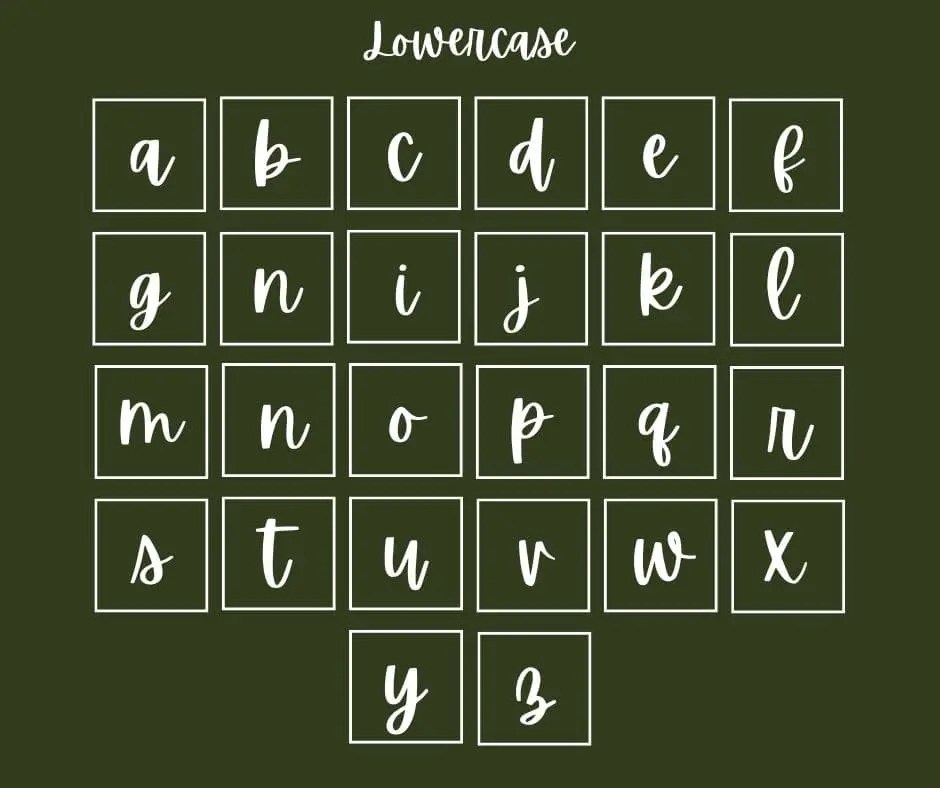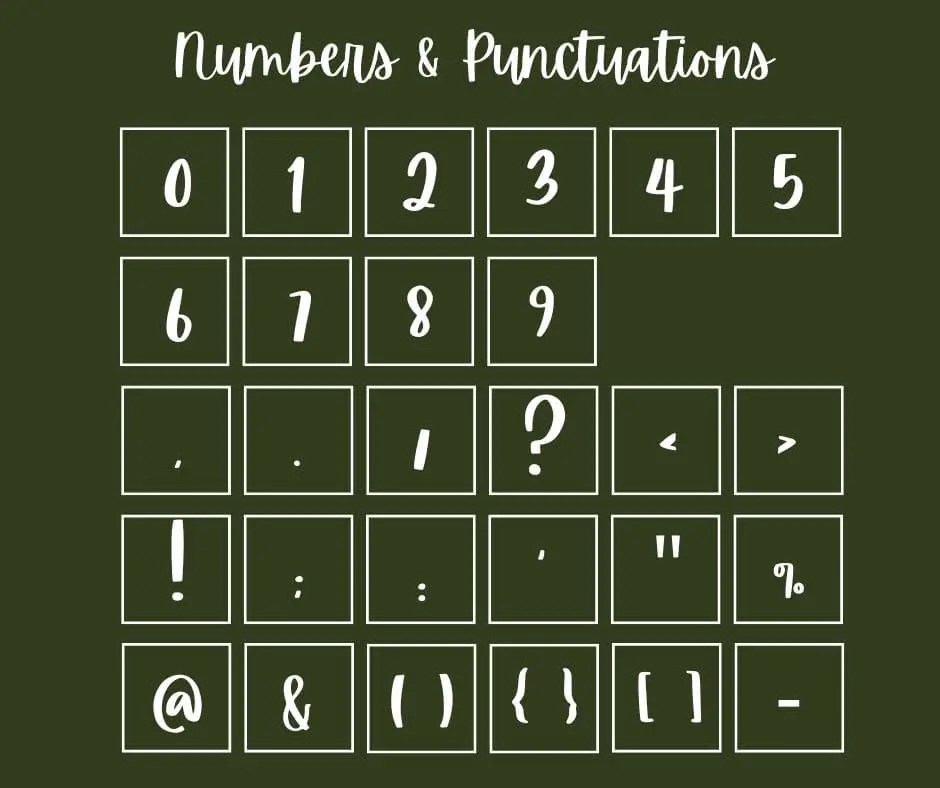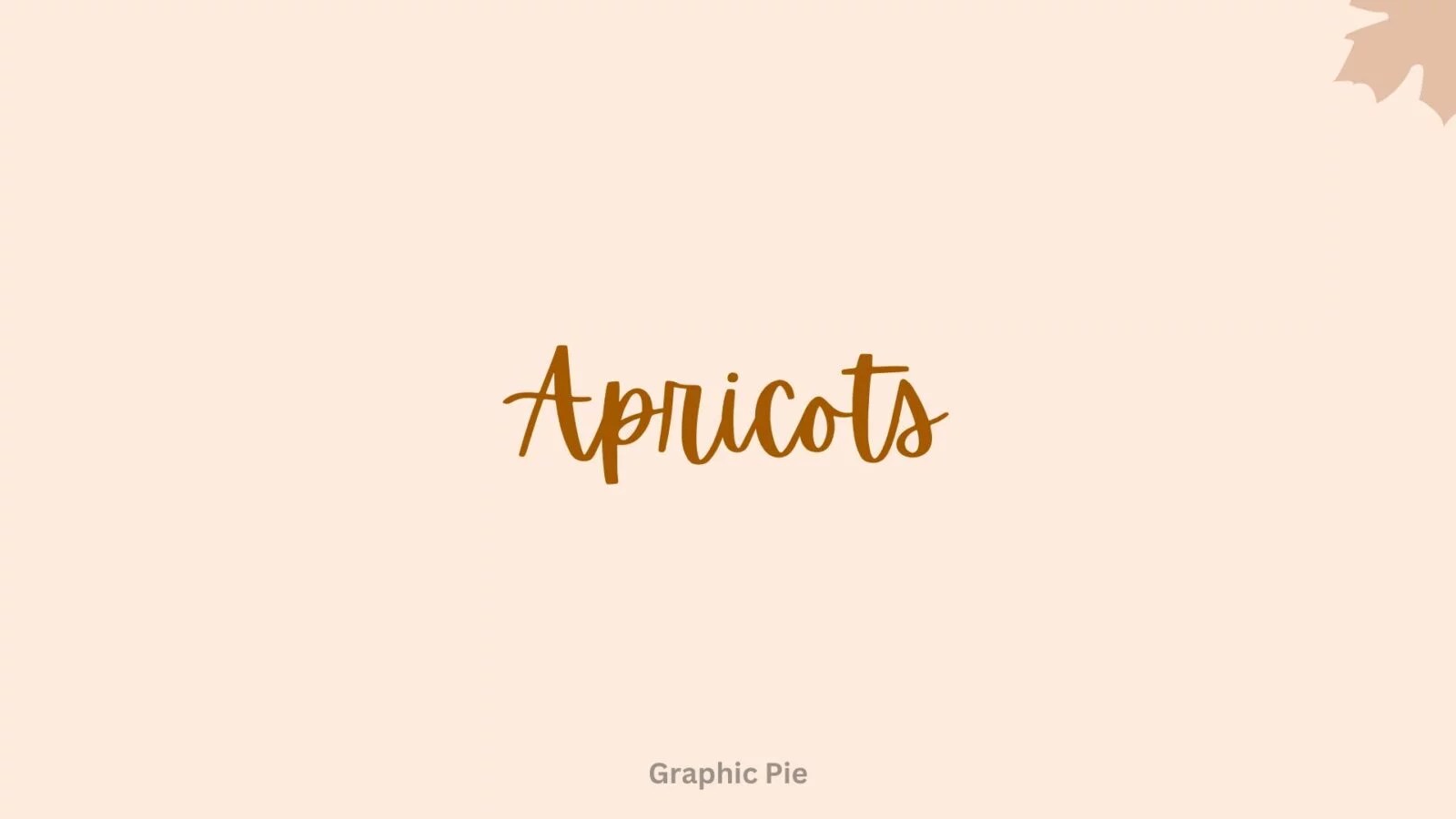
Apricots Font Canva . Enhance your design projects with the visually appealing apricots font available in canva! It is designed to mimic. Trusted by millions + easy to use font files + full support. This unique font is sure to make your creations stand out and capture the attention of your. Apricots not all winter fonts need to be fancy, and the apricots font on canva is the perfect christmas font with a little fun! 10 free cursive fonts in canva apricots i will start my list with one of my font favorites:
Enhance your design projects with the visually appealing apricots font available in canva! Trusted by millions + easy to use font files + full support. 10 free cursive fonts in canva apricots i will start my list with one of my font favorites: Apricots not all winter fonts need to be fancy, and the apricots font on canva is the perfect christmas font with a little fun! It is designed to mimic. This unique font is sure to make your creations stand out and capture the attention of your.